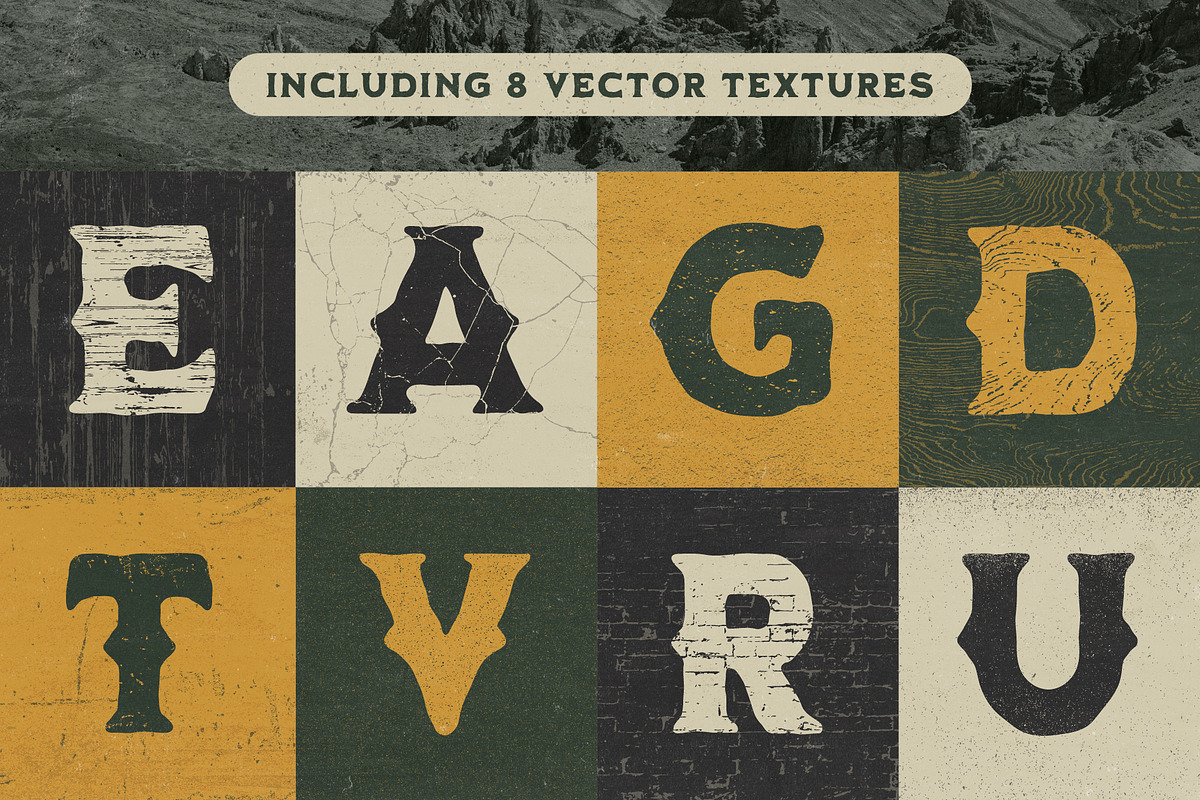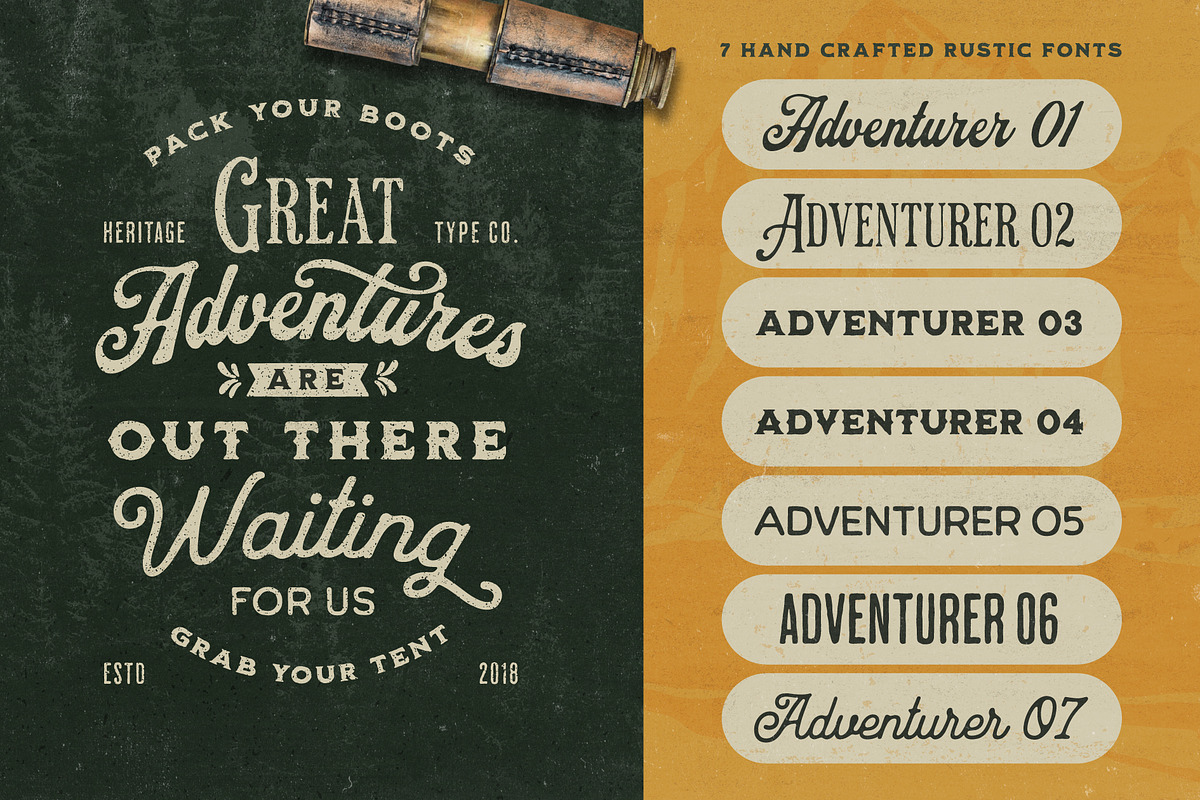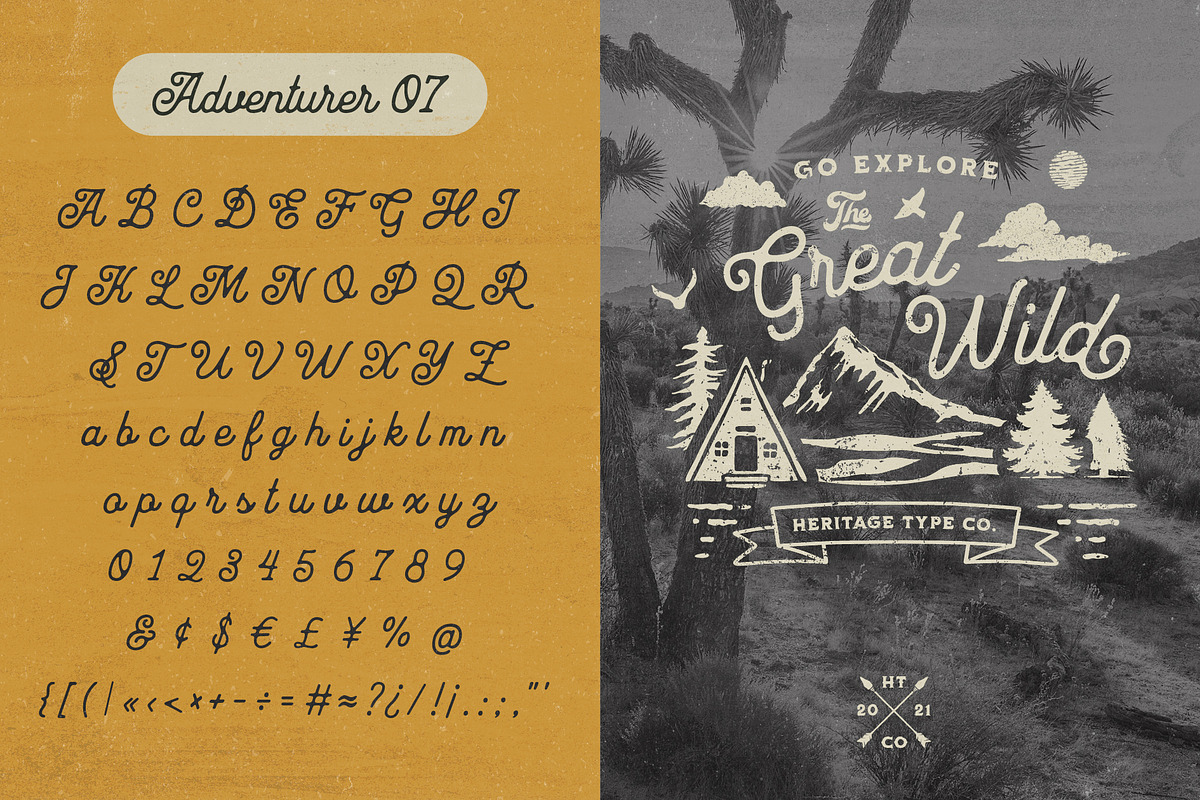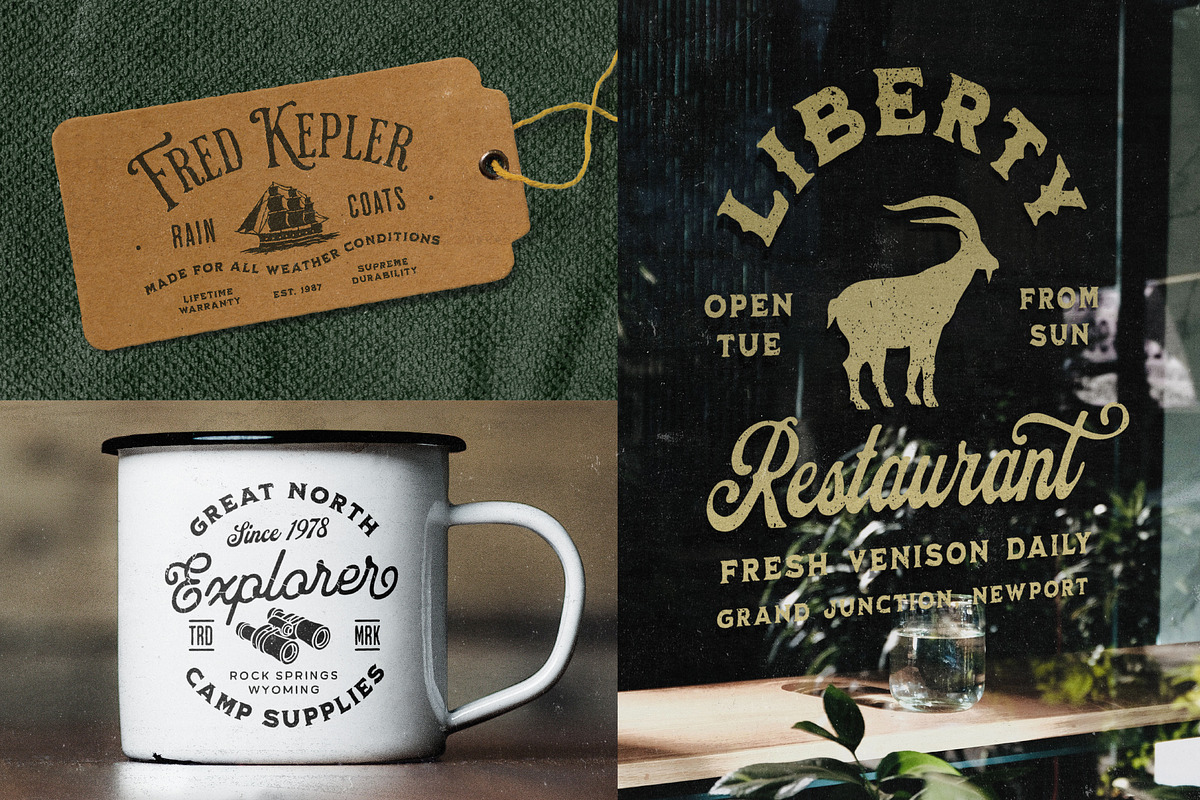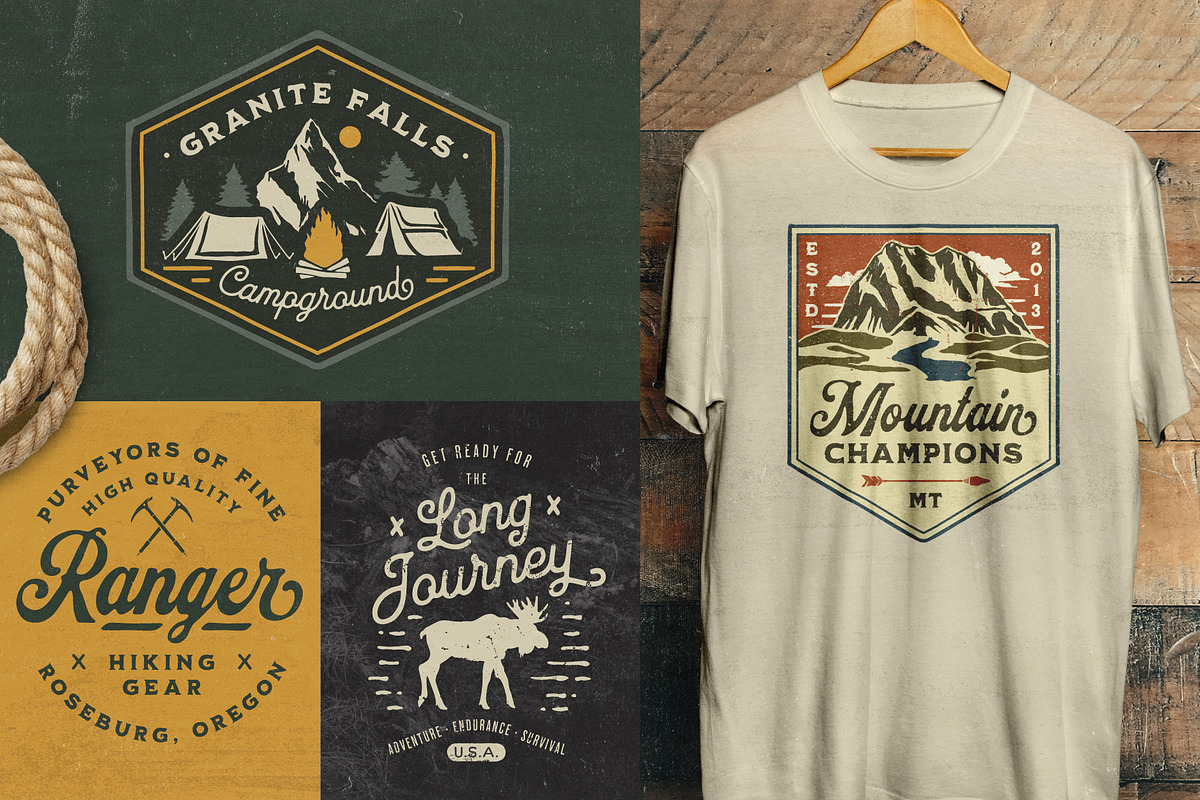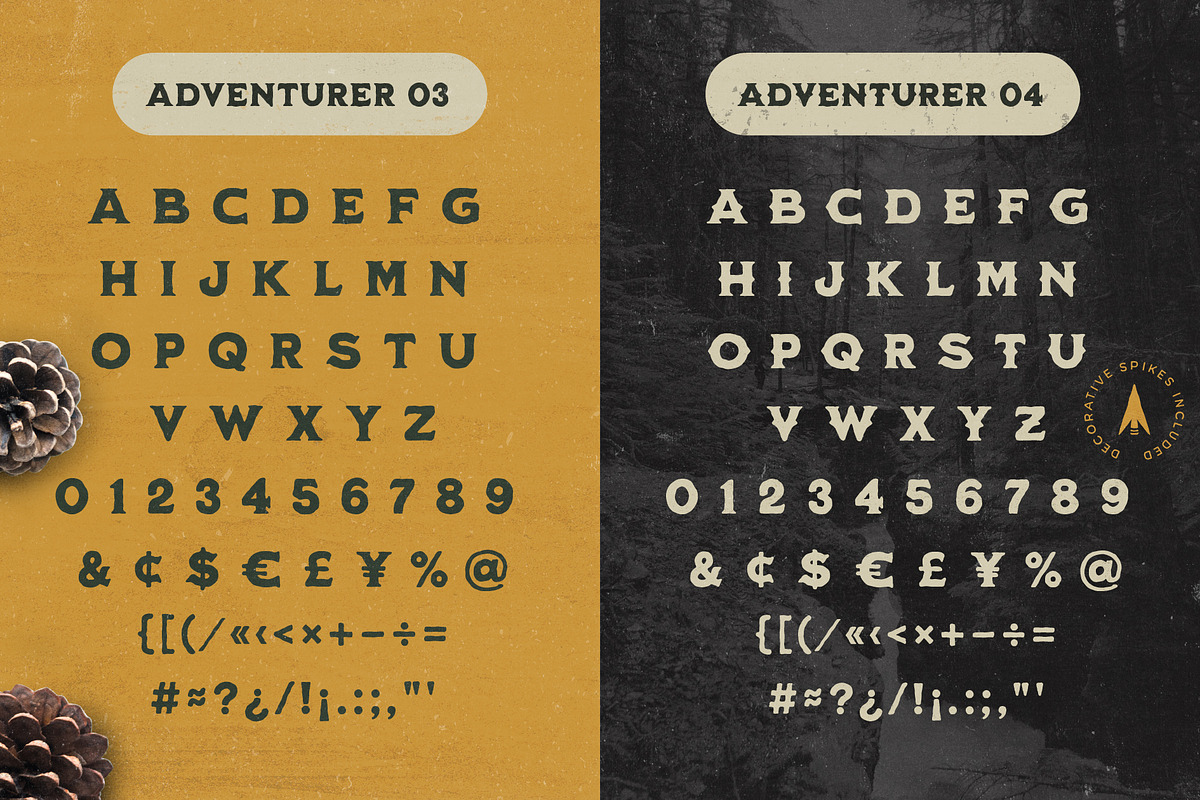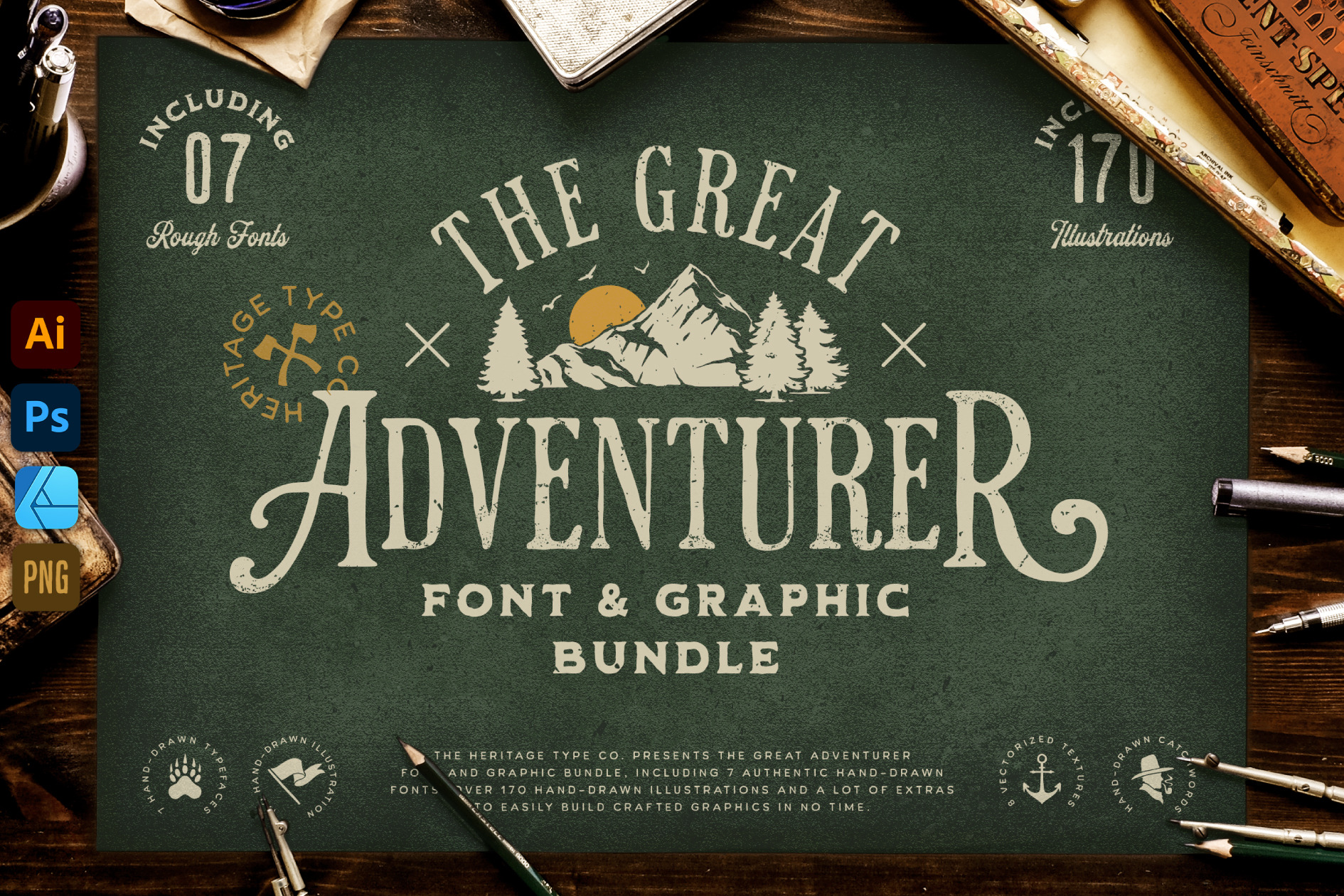
Great Adventurer Font Bundle
The Great Adventurer Font & Graphic Bundle contains a set of 7 hand-crafted fonts with a characteristic warm, rough look. Ranging from sans to script, all fonts work together seamlessly to create unique logos and badges, packaging, apparel designs, and much more.
This product also comes with over 170 vector illustrations inspired by the great outdoors, 27 banners and shapes, as well as 35 ready-made catchwords for your typographic compositions. 18 editable logo templates for Adobe Illustrator, Photoshop, and Affinity Designer make logo and badge design a walk in the park.
As a finishing touch, we included 8 vector textures to give your designs an authentic, rustic appearance.
- Adventurer 01 (OTF, TTF) incl. special alternates
- Adventurer 02 (OTF, TTF) small caps, incl. special alternates
- Adventurer 03 (OTF, TTF) uppercase
- Adventurer 04 (OTF, TTF) uppercase
- Adventurer 05 (OTF, TTF) uppercase
- Adventurer 06 (OTF, TTF) uppercase
- Adventurer 07 (OTF, TTF) incl. special alternates
- Font Features
- Latin extended
- Alternate Characters and Ligatures